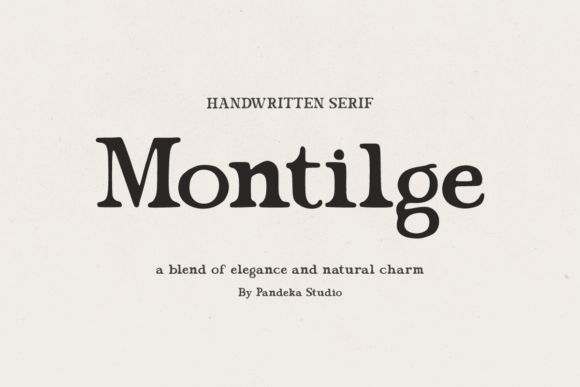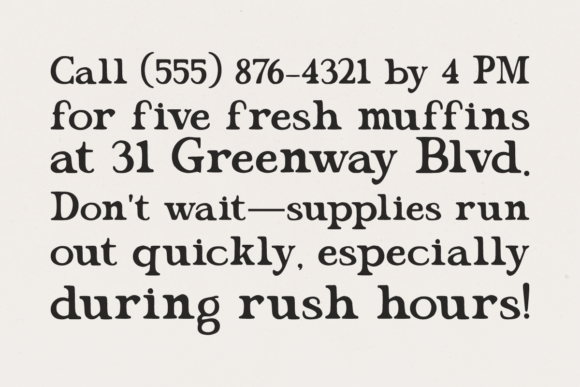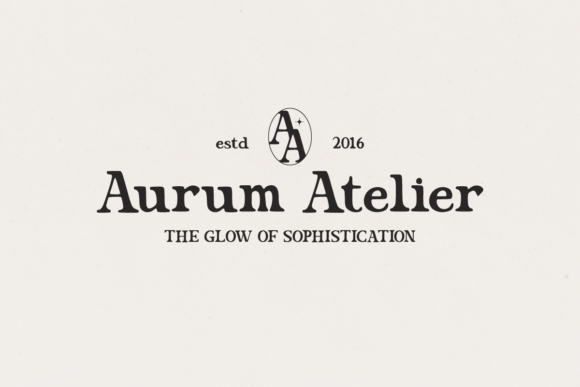
Montilge Font: Rustic Handwritten Serif for Elegant Branding
About the Montilge Font
The wait is over! The incredible Montilge Font is now available for your design toolkit. Montilge – A natural handwritten serif font with elegant typography and a rustic aesthetic. Perfect for timeless designs, classic lettering, and authentic projects like branding, editorial layouts, and packaging. Montilge’s unique style adds a touch of warmth and sophistication to any creative work.
Montilge excels in headlines, short paragraphs, and logos where its elegant, rustic charm shines. It’s ideal for branding projects aiming for a sophisticated yet approachable feel, particularly in the food, beverage, or lifestyle sectors. Avoid using it for large blocks of body text or UI elements; its handcrafted nature can hinder readability in those contexts.
Pair Montilge with a clean sans-serif like Lato or Open Sans for a balanced contrast, enhancing its rustic elegance without overwhelming the design. Alternatively, a geometric sans-serif such as Montserrat would provide a modern counterpoint. For invitations or more luxurious applications, consider pairing it with a delicate script font.
Its core personality is sophisticated yet approachable; warm and friendly but never overly casual. This makes it suitable for brands seeking to project an image of timeless quality and handcrafted authenticity.
Montilge Font Usage Examples
Montilge Font Example